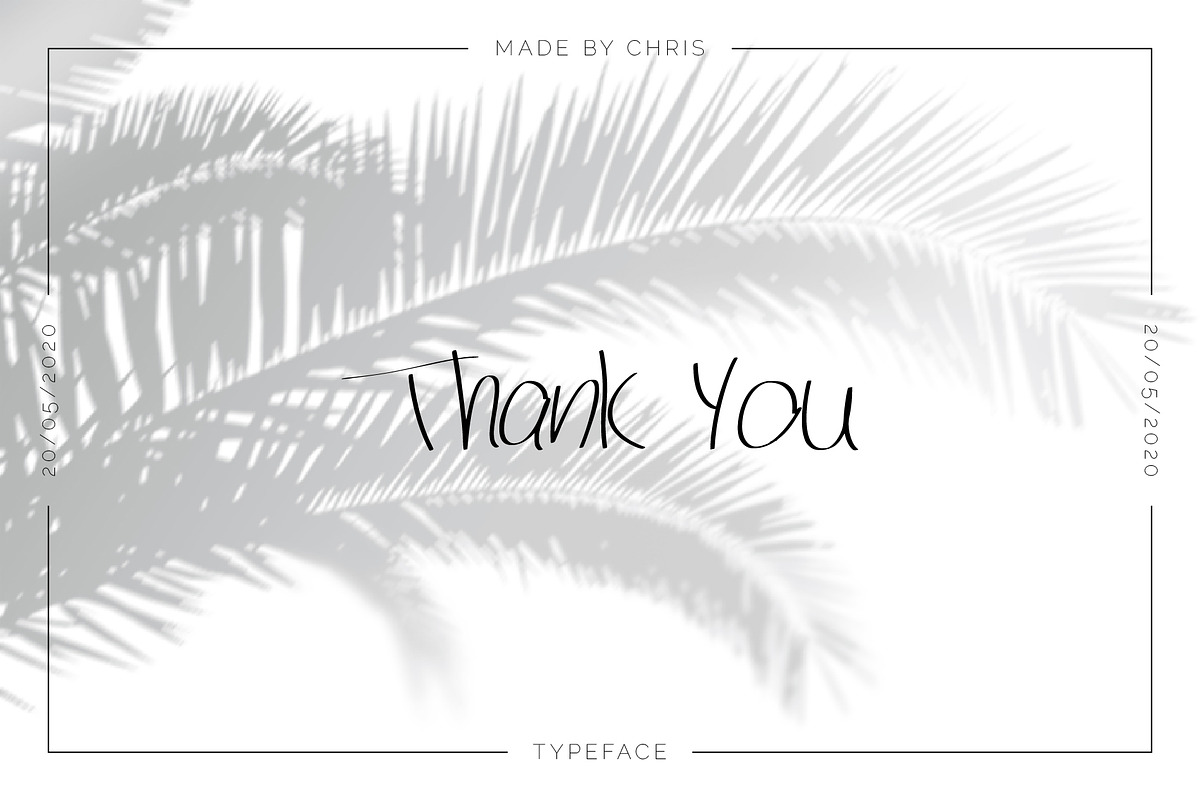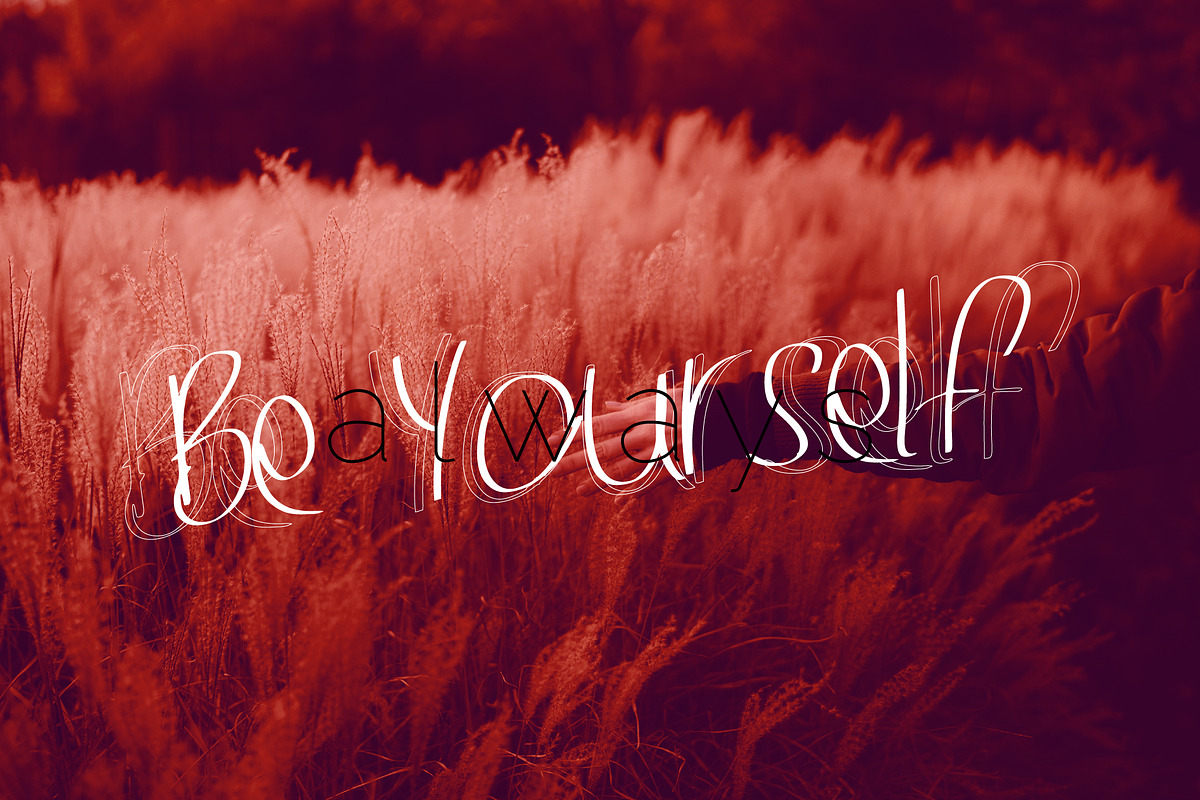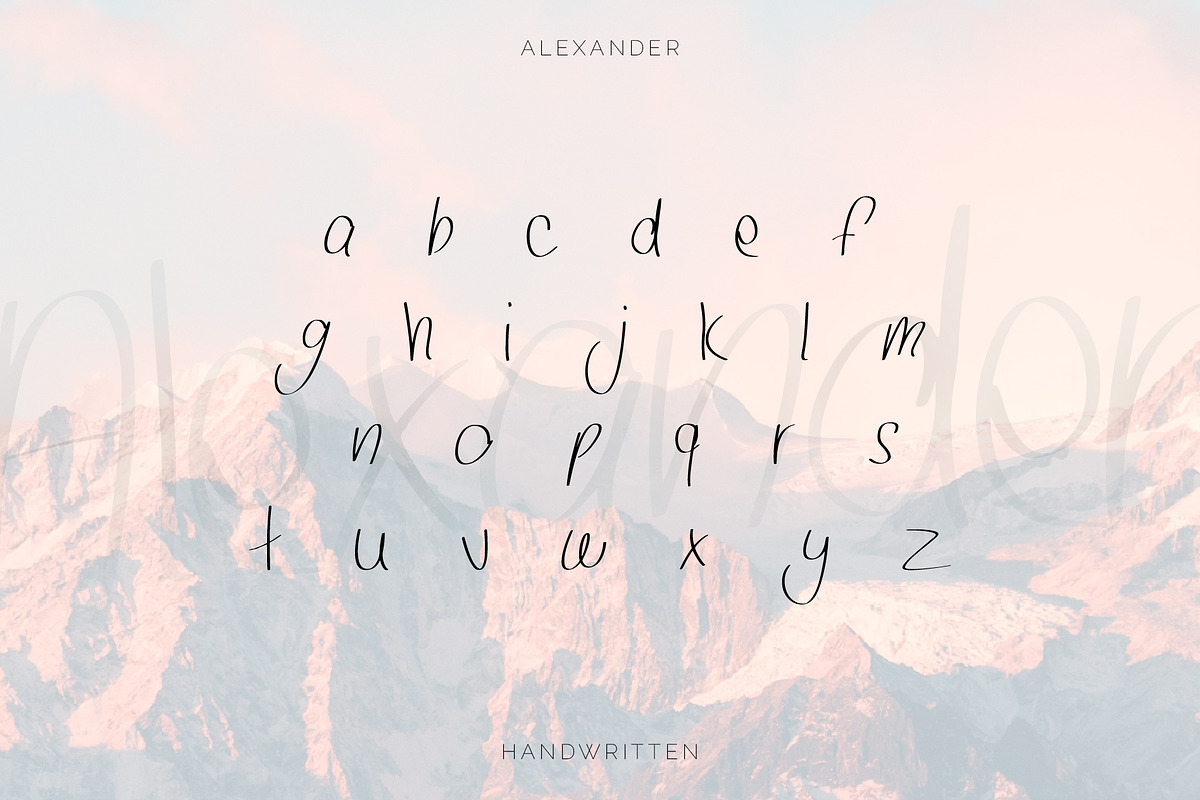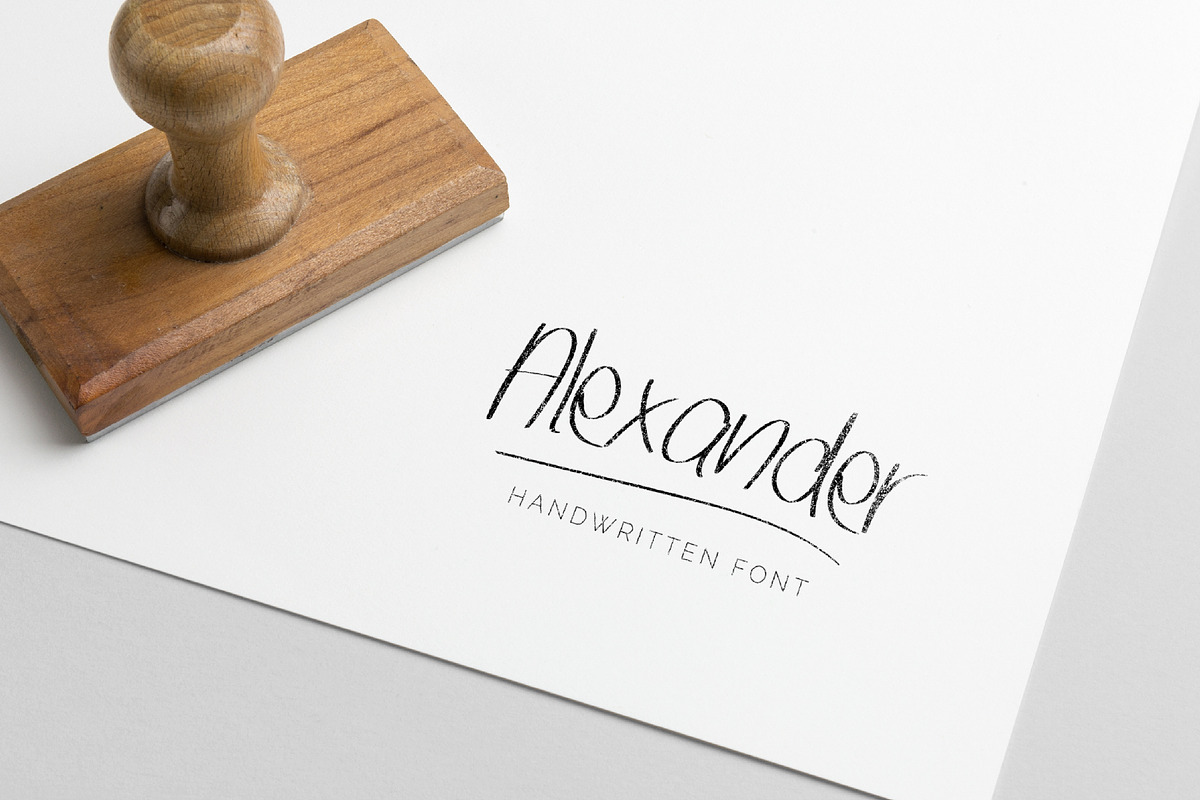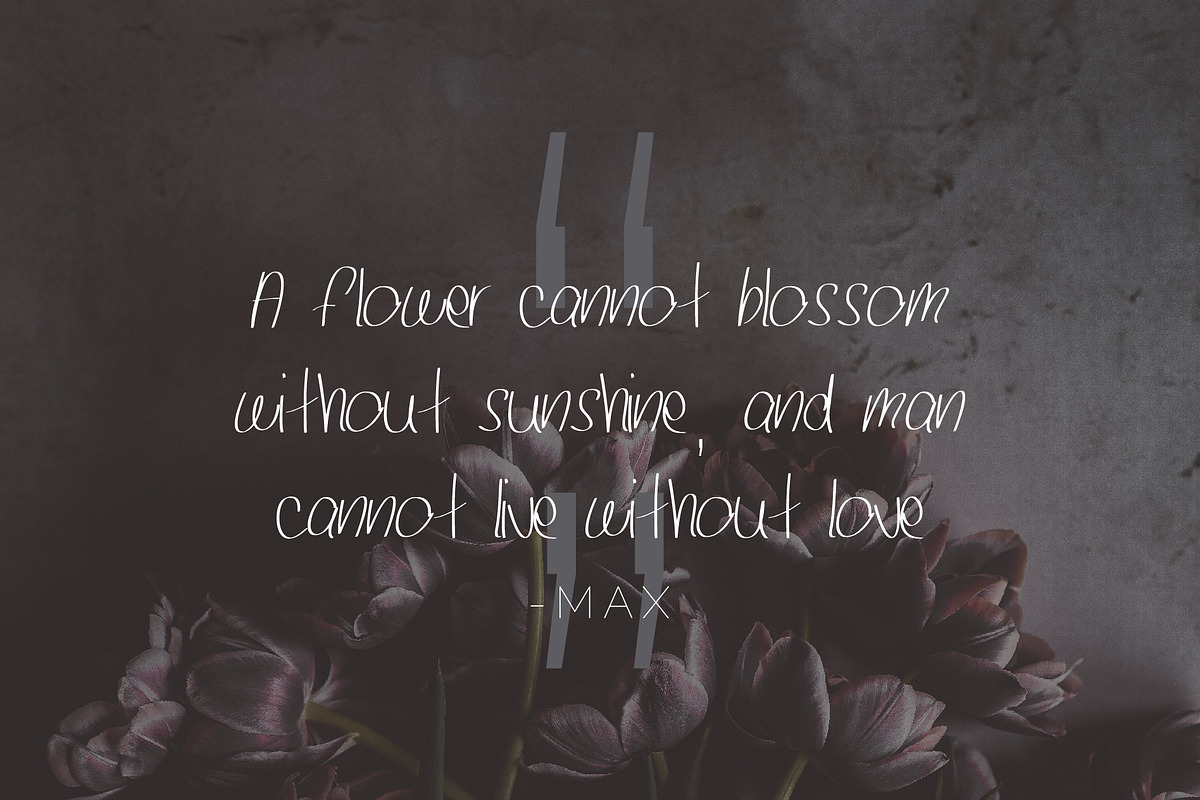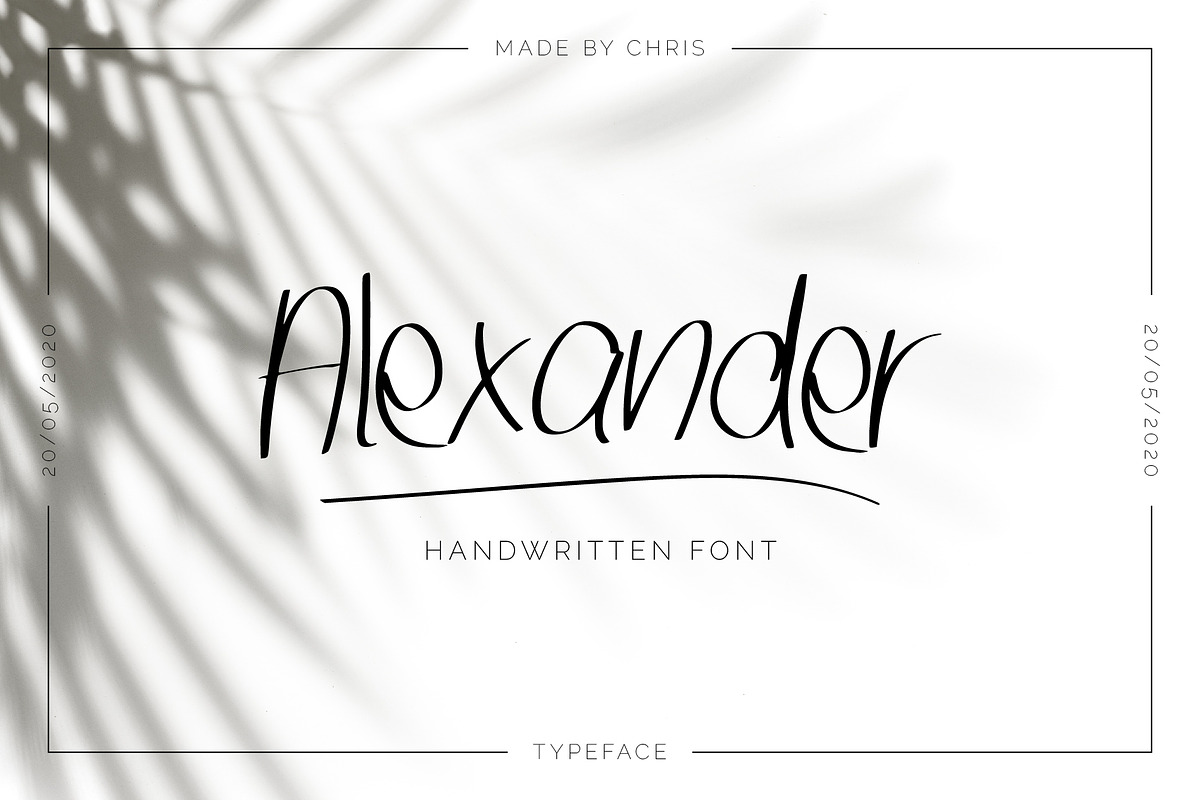
Alexander - Handwritten Font
An elegant handwritten font that will give your designs that authentic feel. A fonts uses are endless, anything from logos to signatures and even handwritten letters.
Alexander - Handwritten Font by Chris Broderick fits naturally into Branding, posters, packaging, typography.